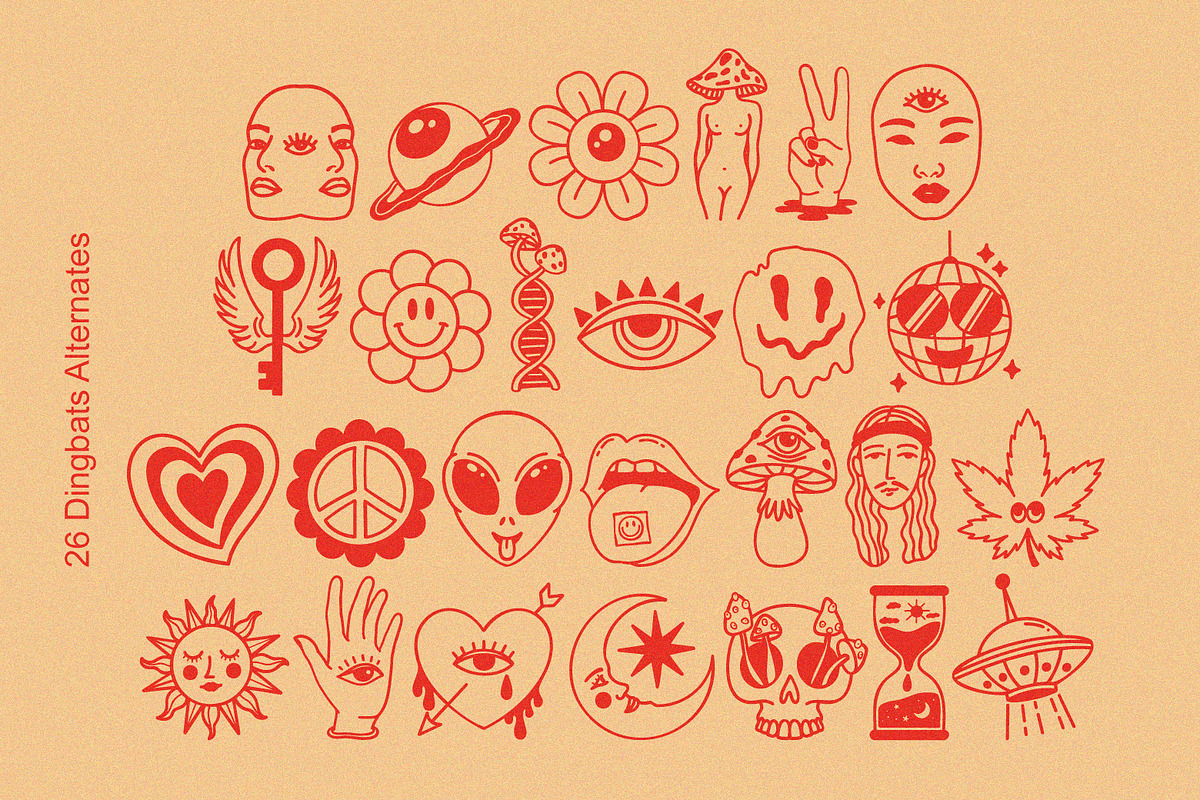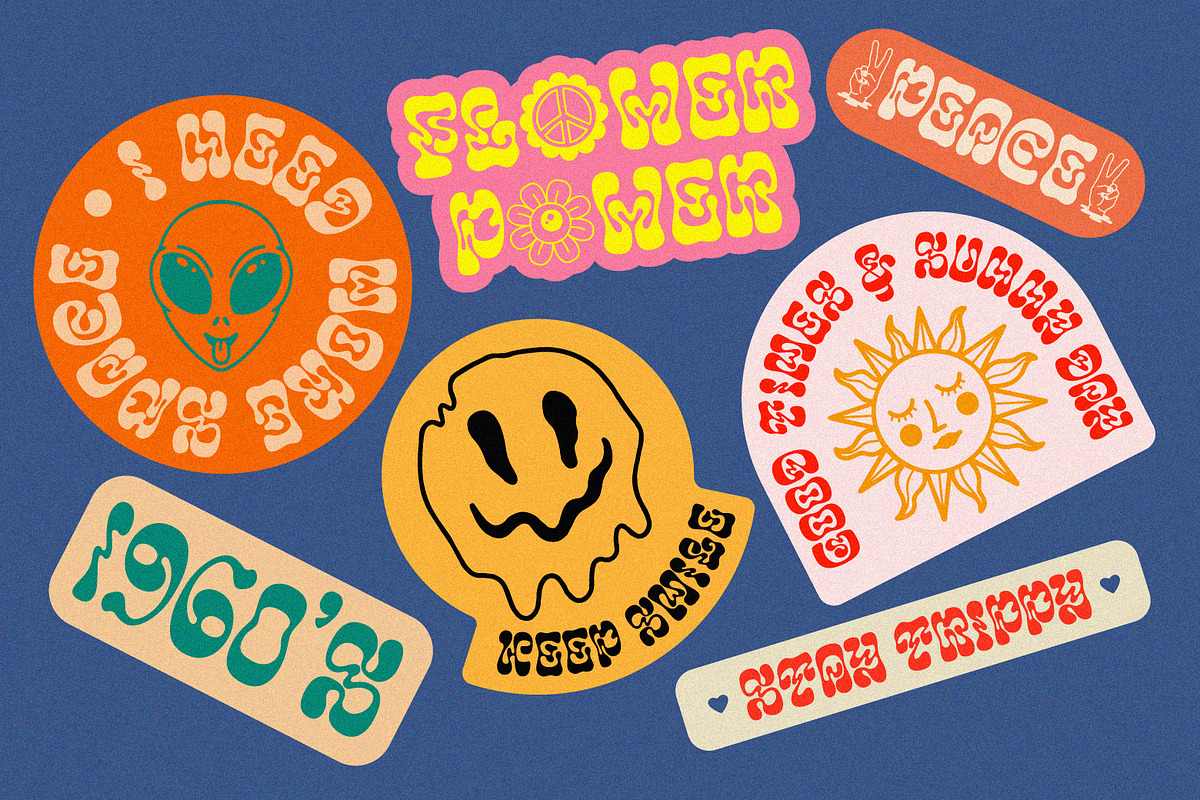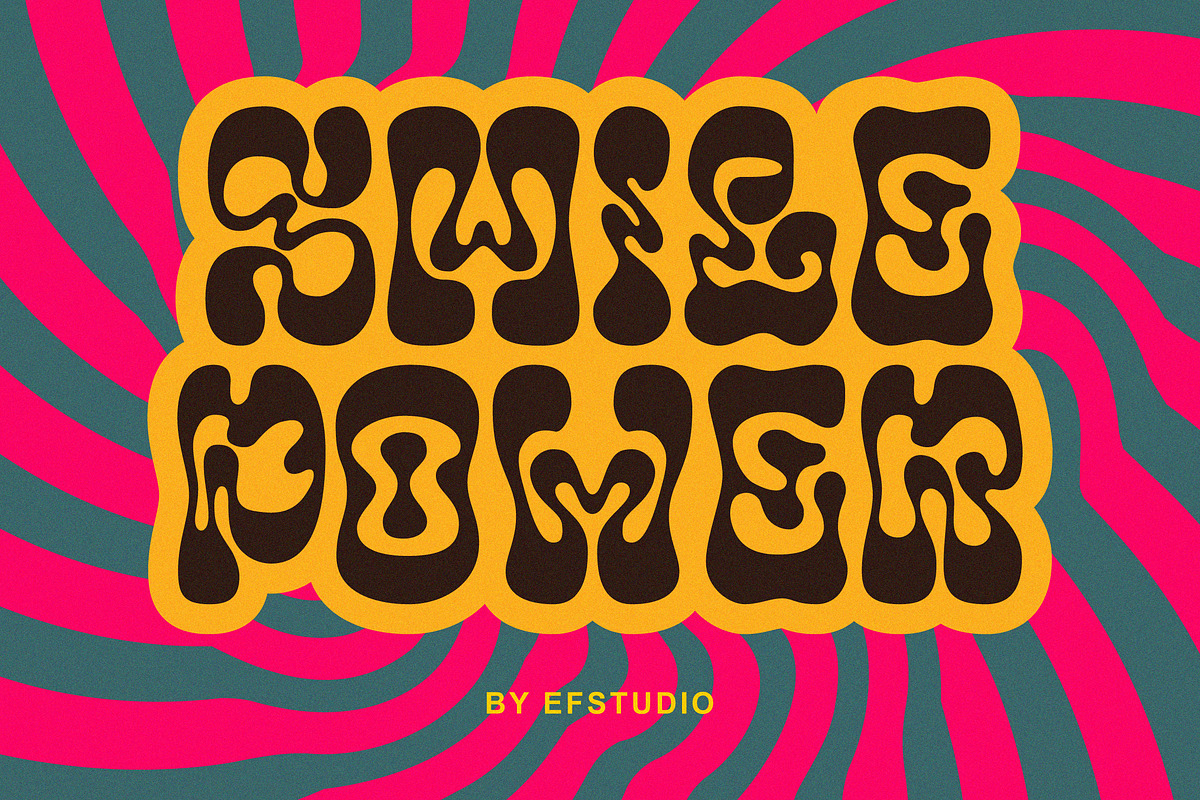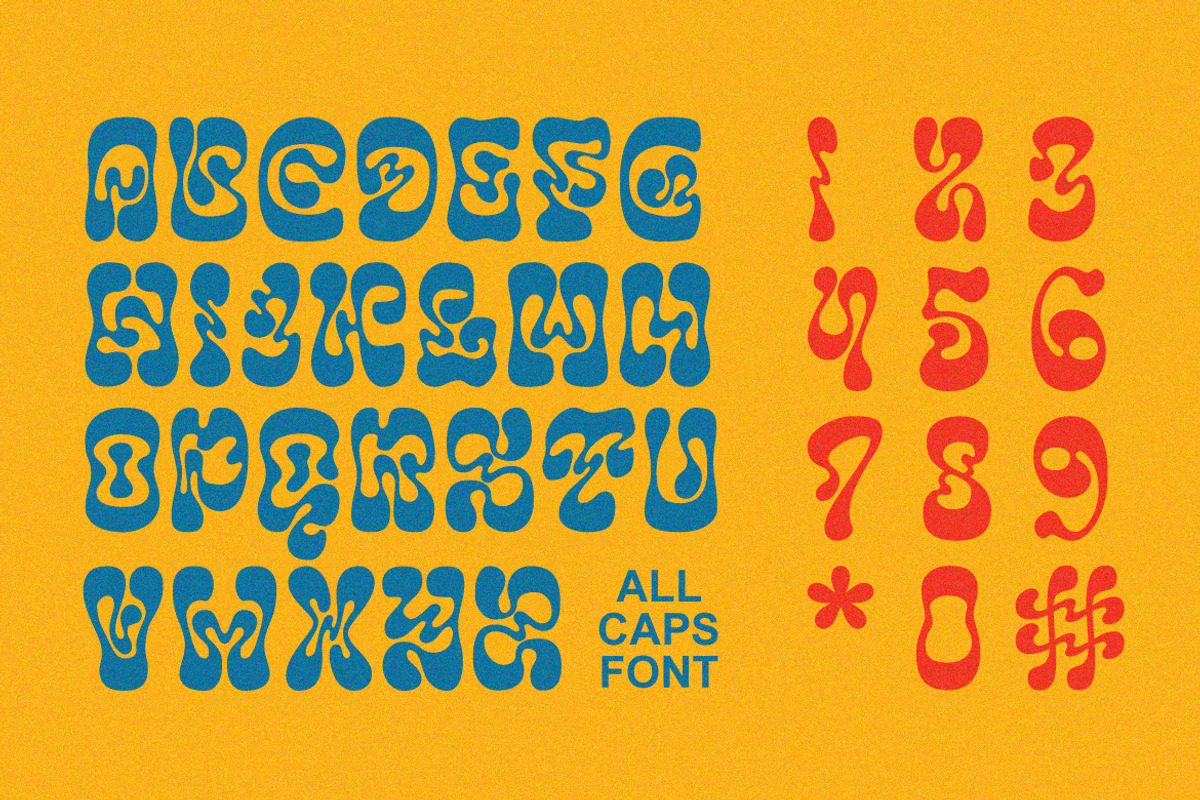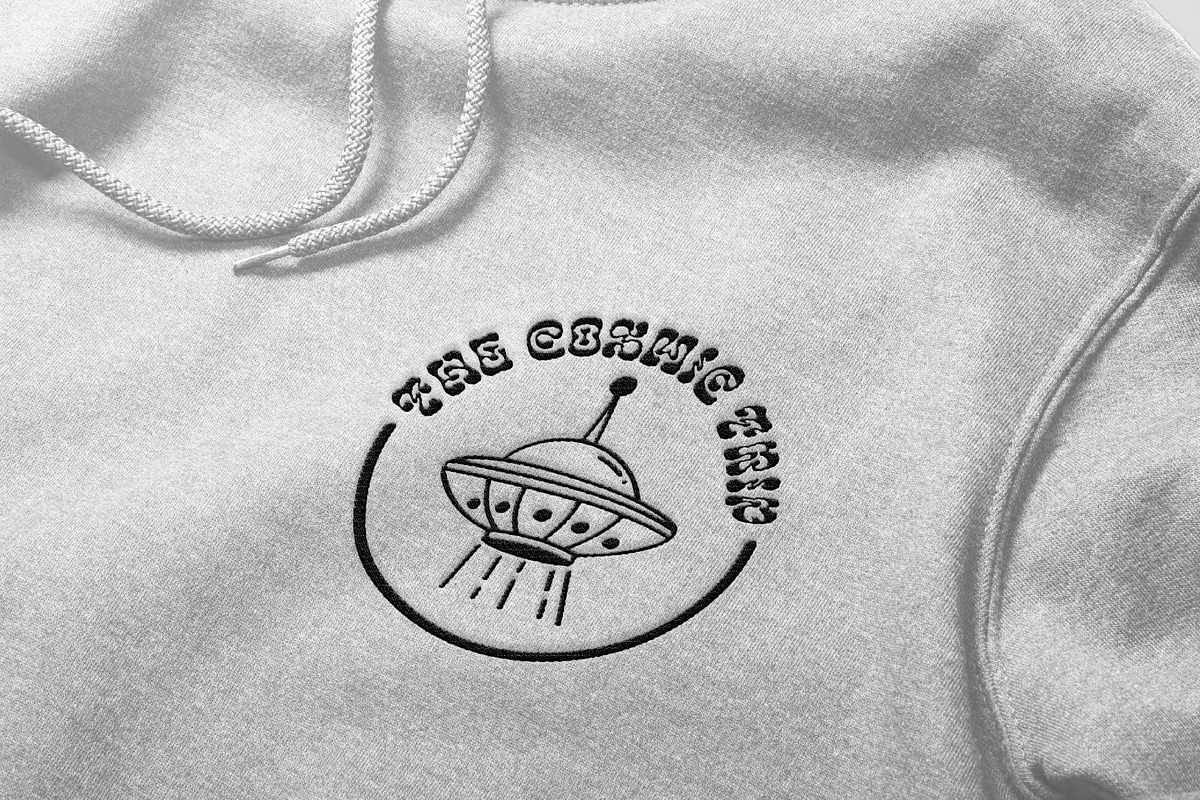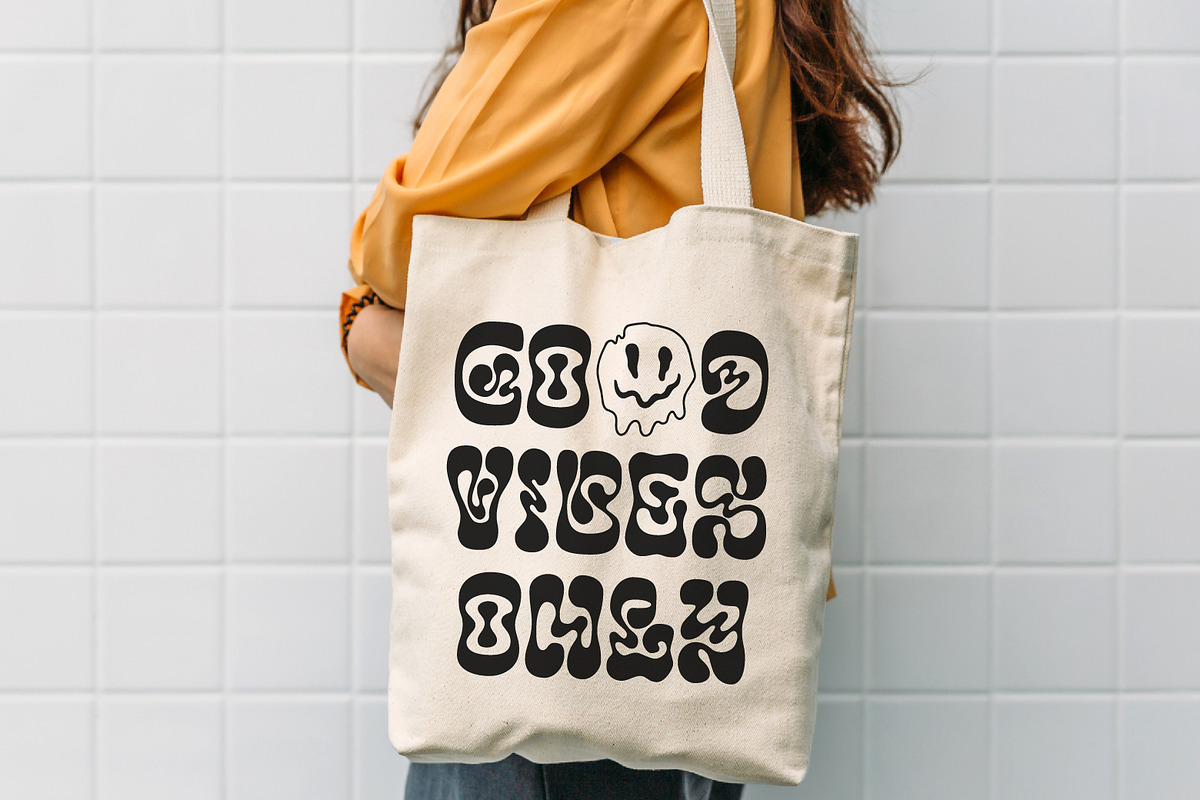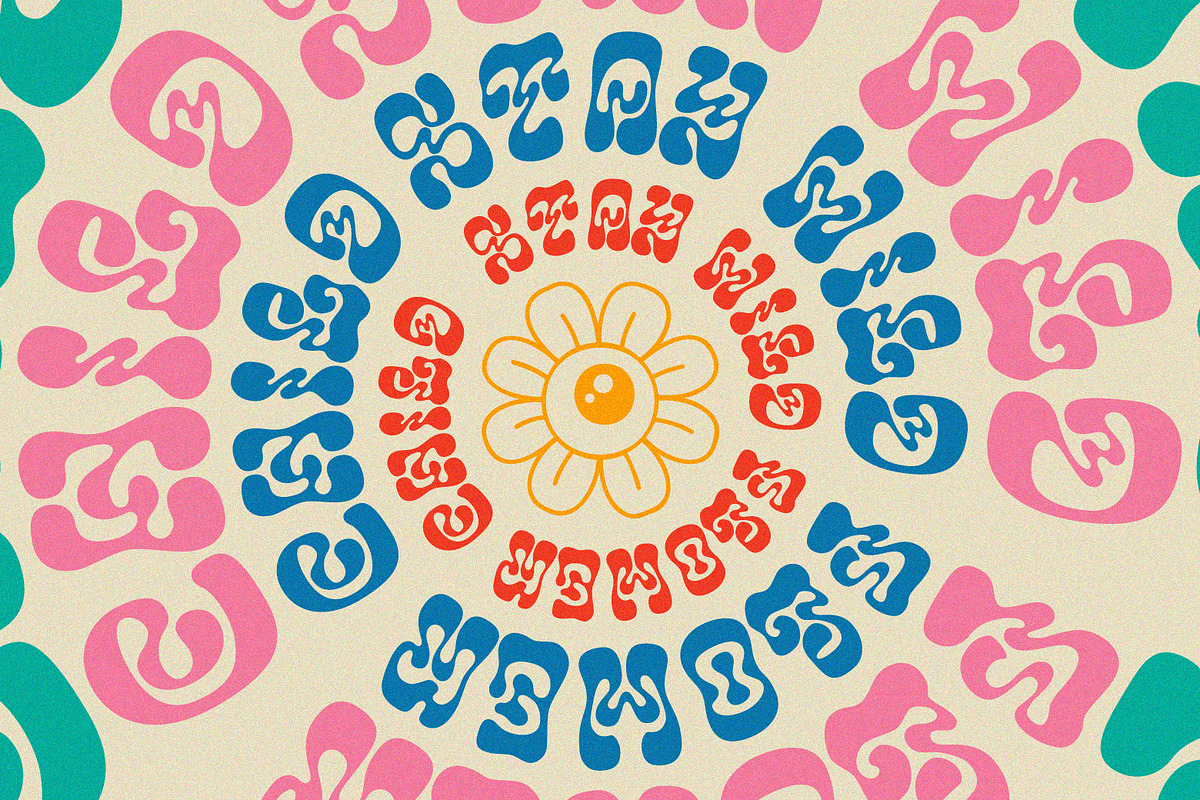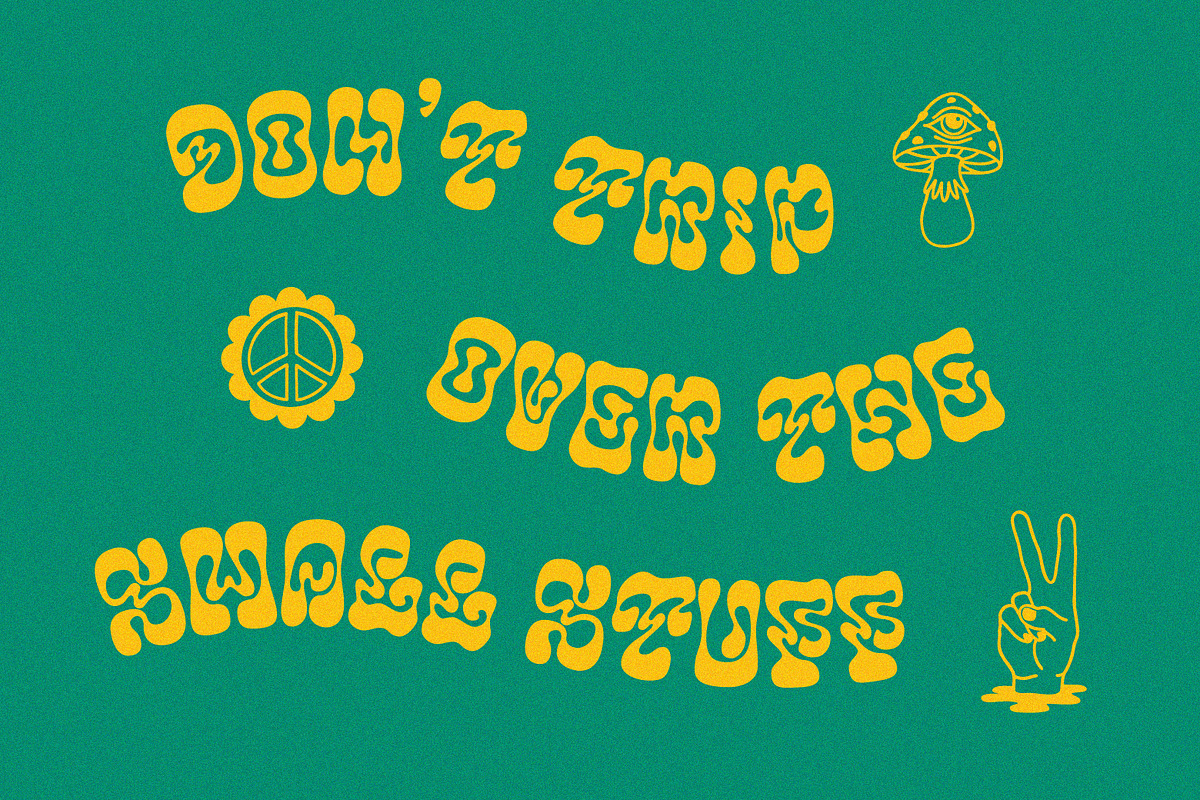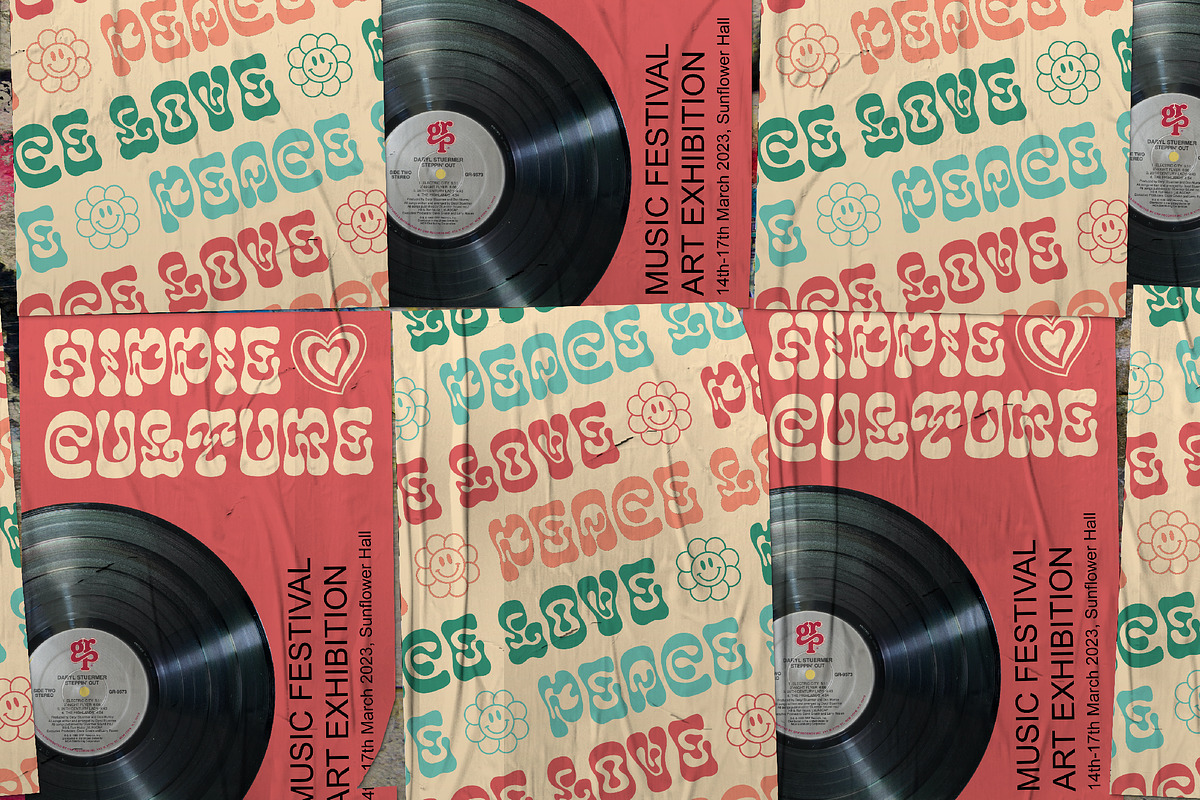
Smile Power | Psychedelic Font
Say hello to Smile Power! You can use this font for psychedelic theme design or any purpose you want. Smile Power will fit on headline, logotype, tittle, poster, and so on. It will be nice to mix and match with simple sans serif. You also will get psychedelic graphics inside the file as alternates. The combination of psychedelic letter and psychedelic icon will make your design on point!